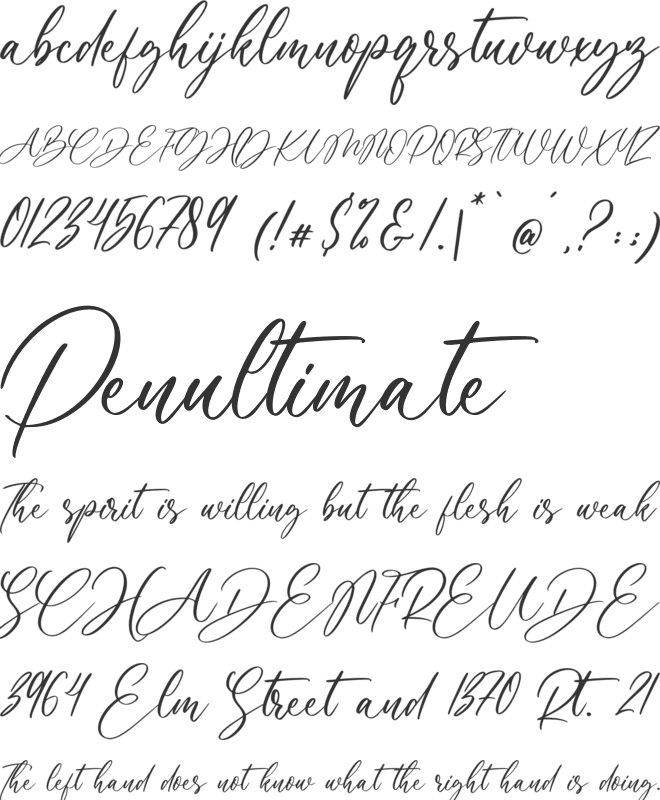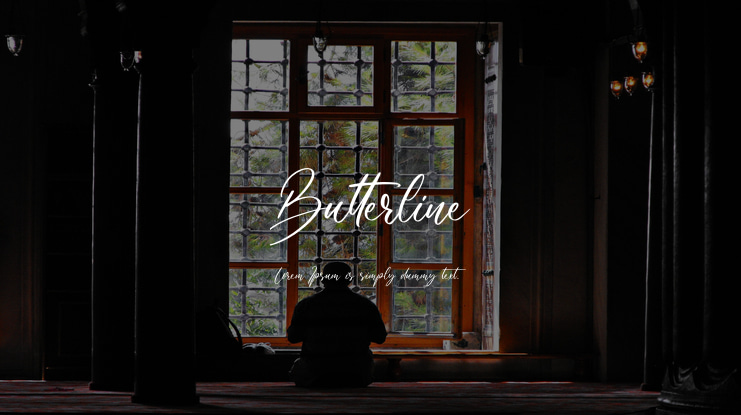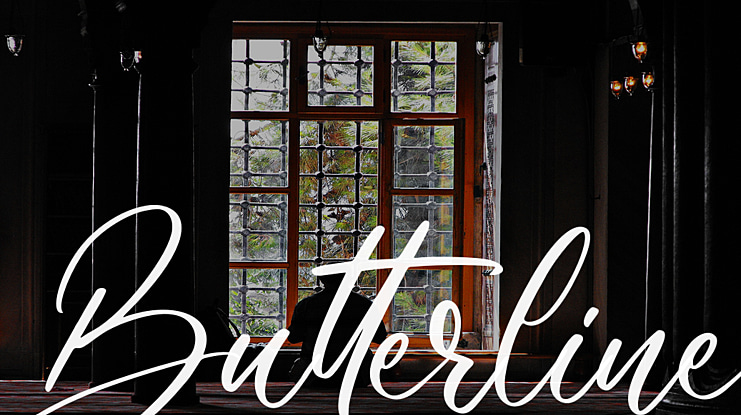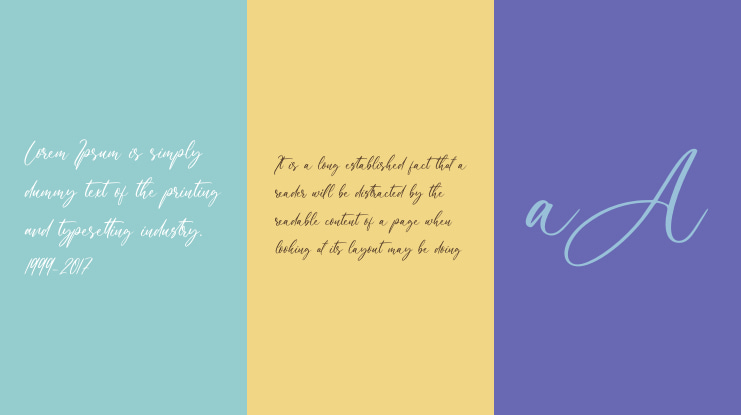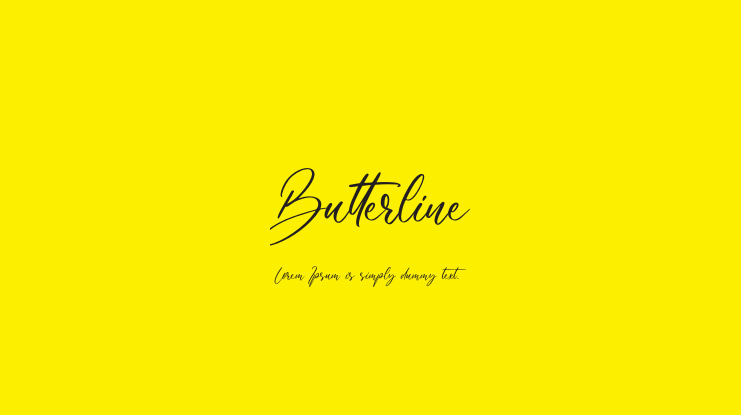
Butterline Font
It’s a chic handwritten script Typeface crafted & designed by NissaStudio. Not too thin and not too thick, balanced and varied, this font was designed to enhance the beauty of your projects. Very suitable to make a branding, Poster, magazine, greeting card, fashion, quotes, logo, packaging, and other.